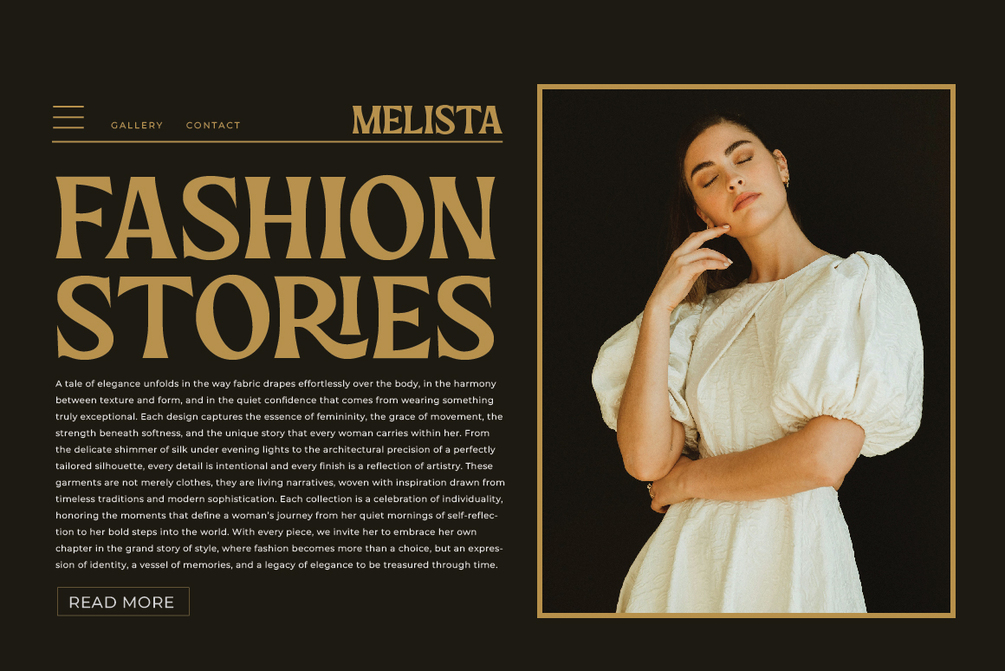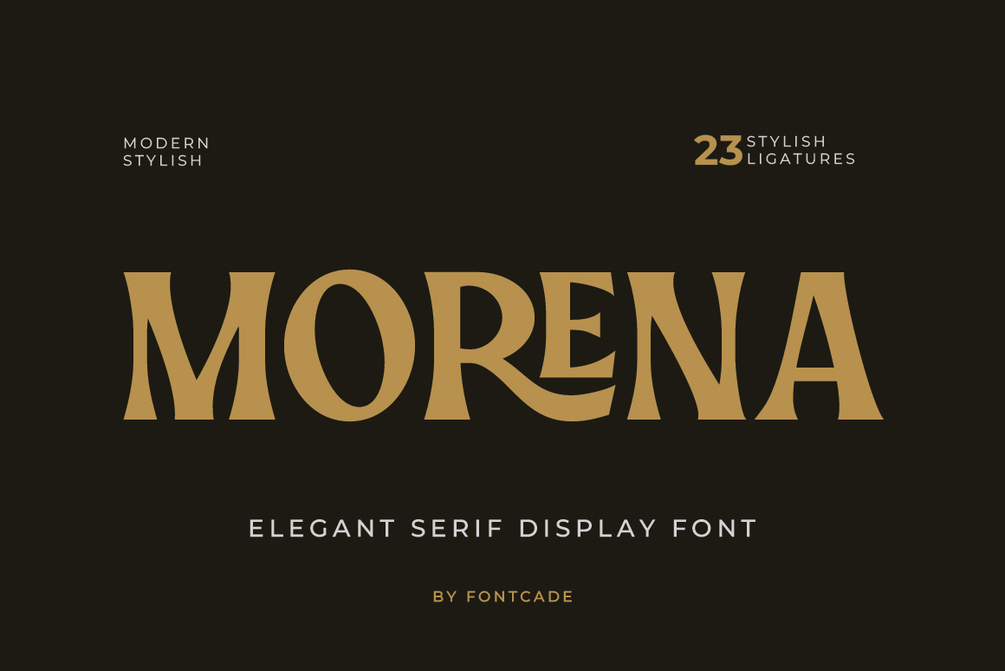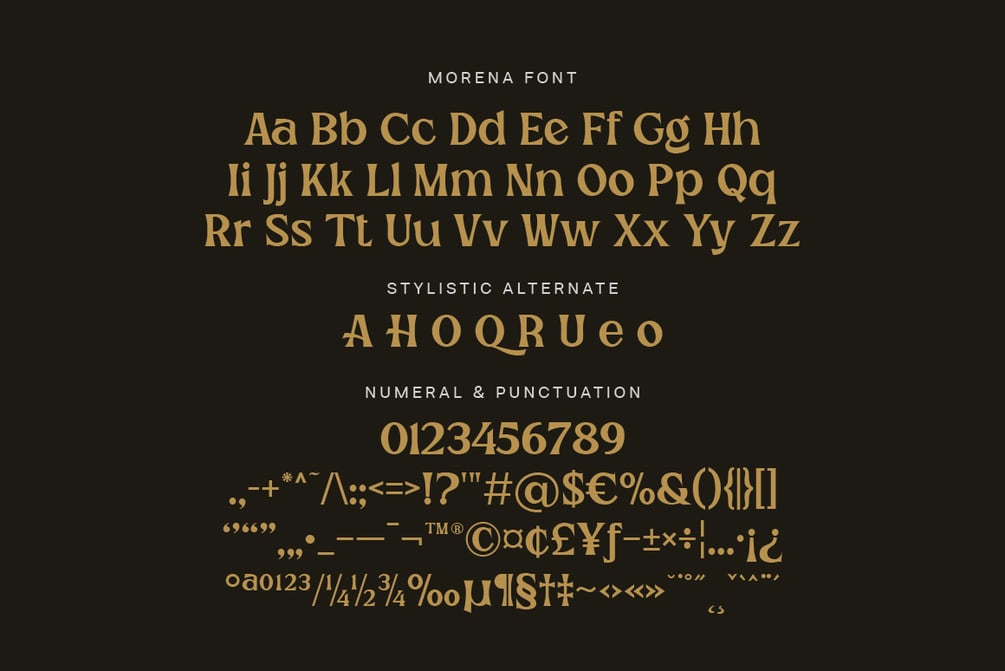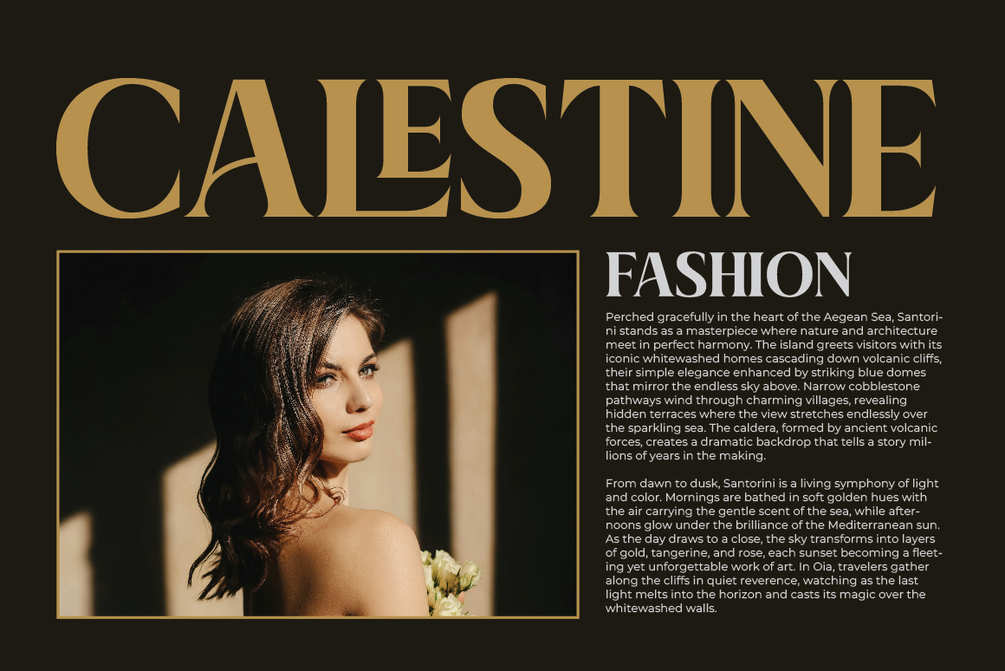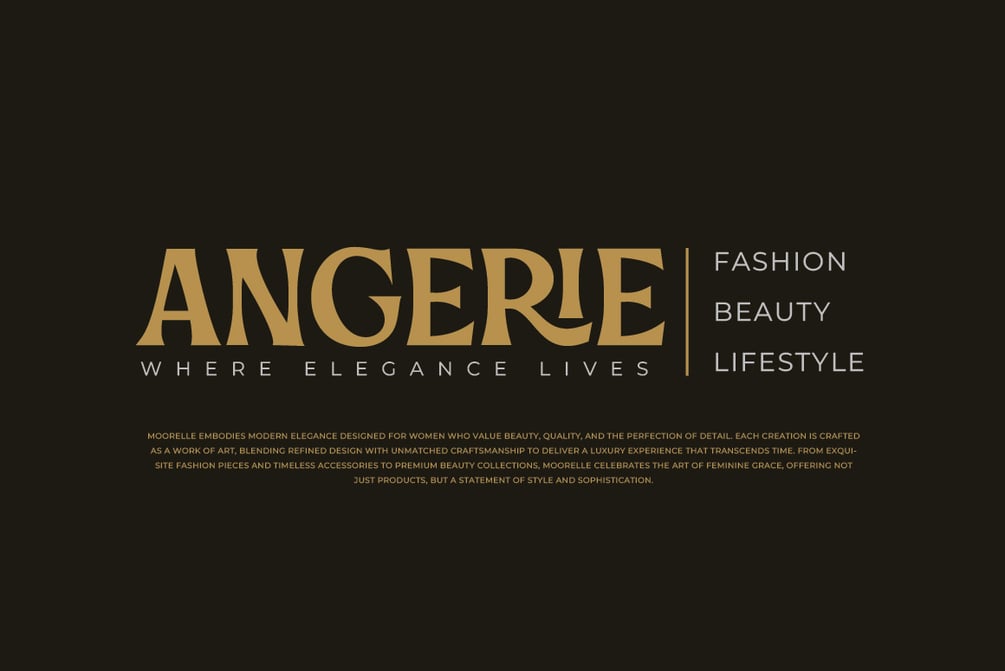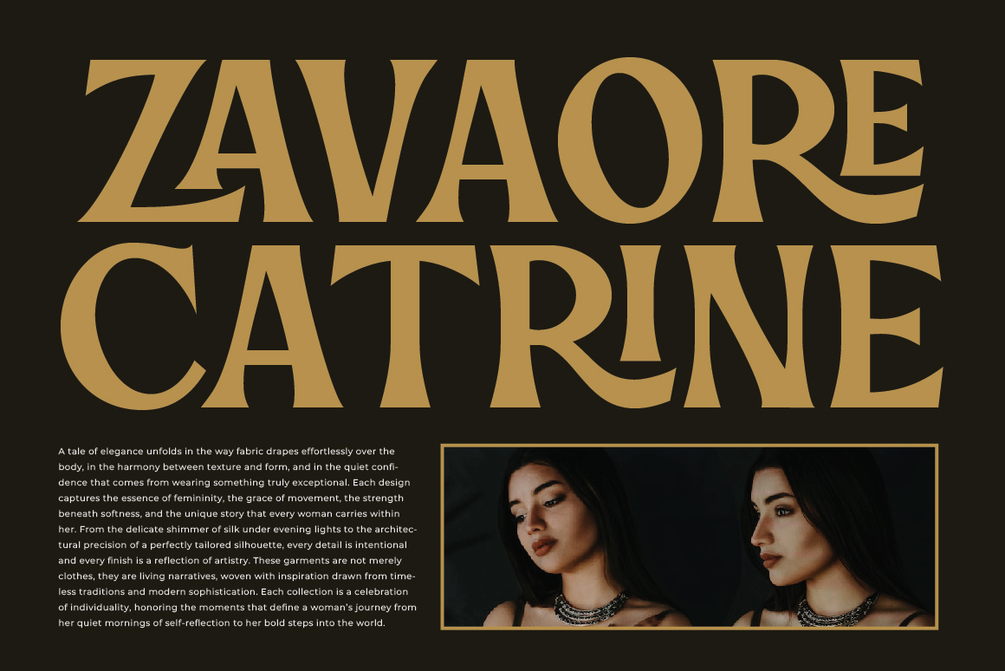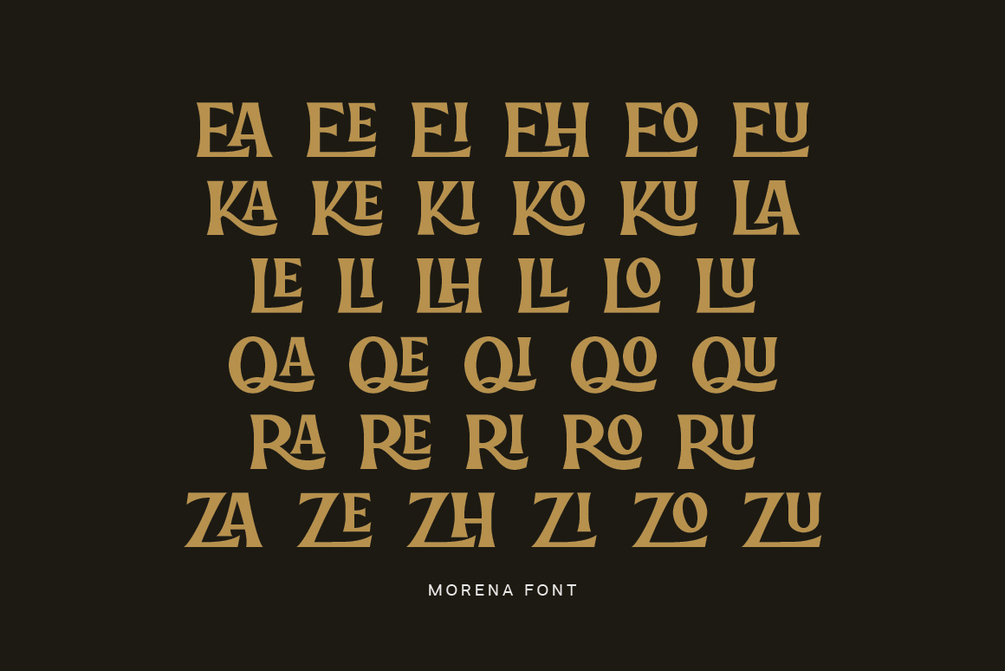
Morena Font
Morena is a display serif font that blends modern classic elegance with a stylish design. It features artistic ligatures that give a distinctive and unique visual character. With its bold serif style and smooth letter curves, Morena creates a captivating look, making it ideal for stylish branding needs such as logos, packaging, and high-end editorials.